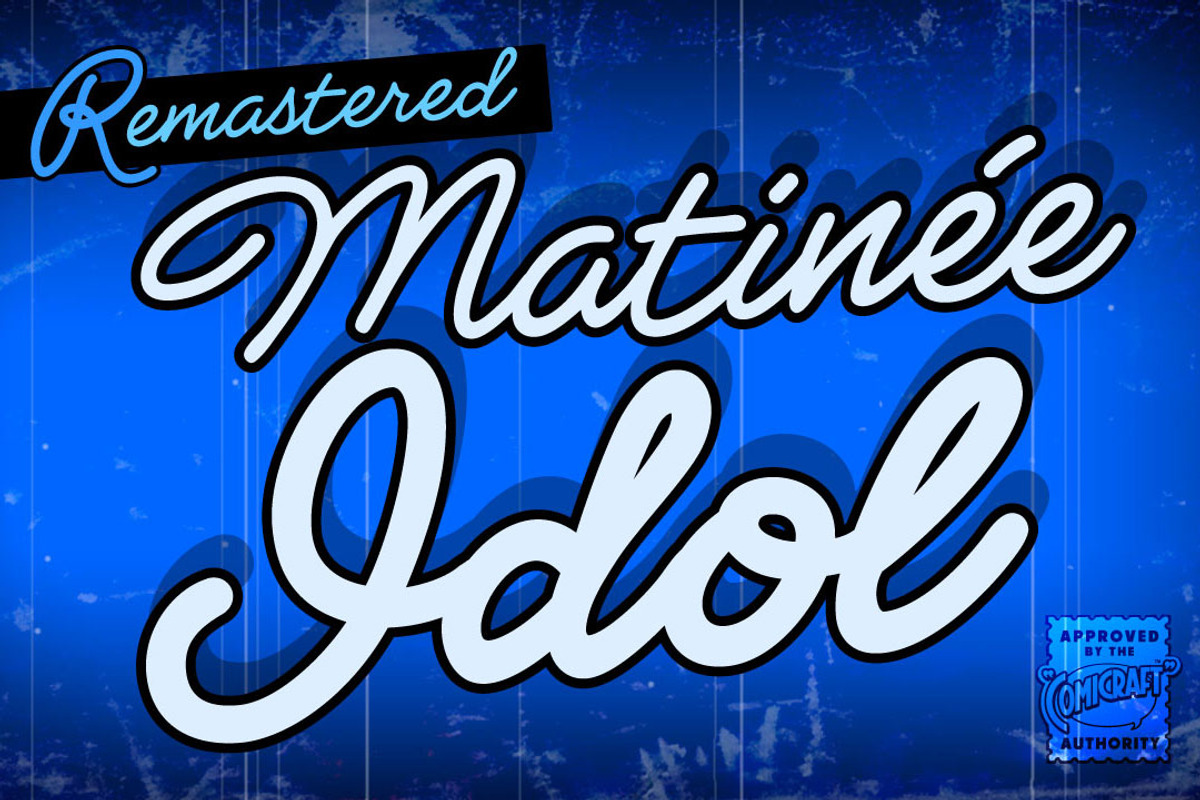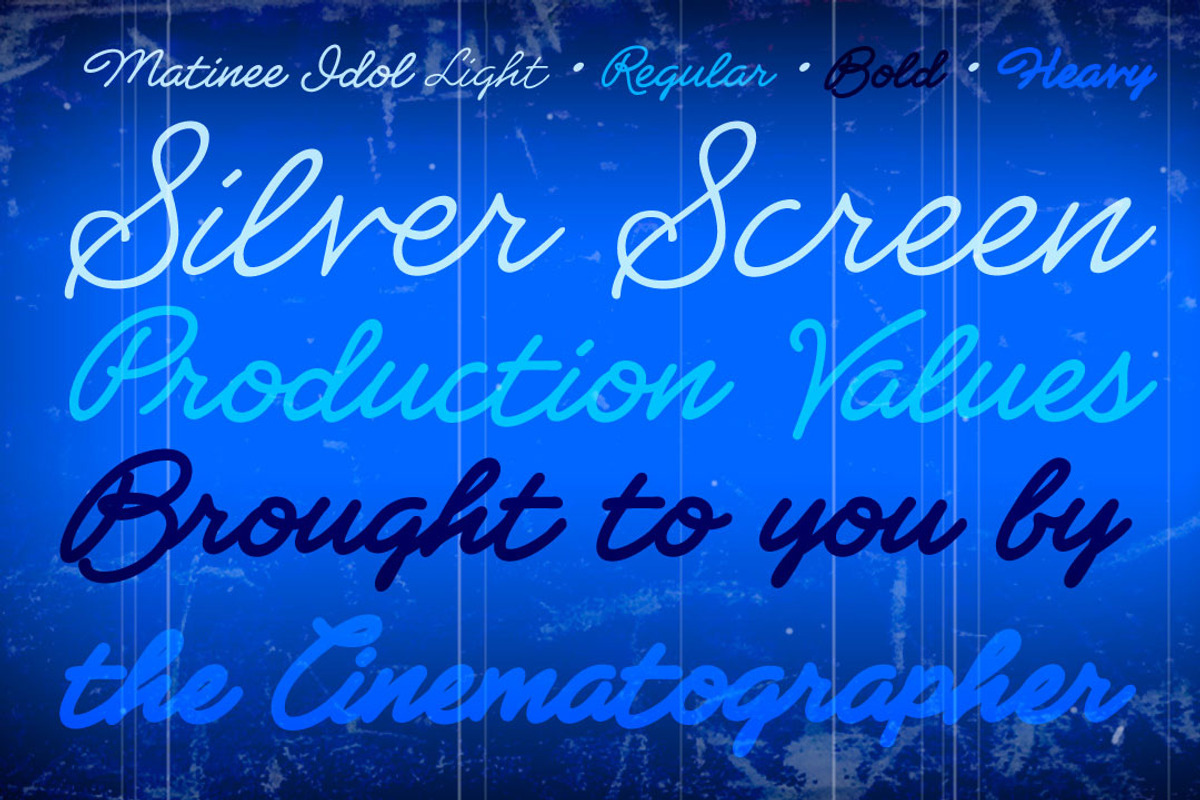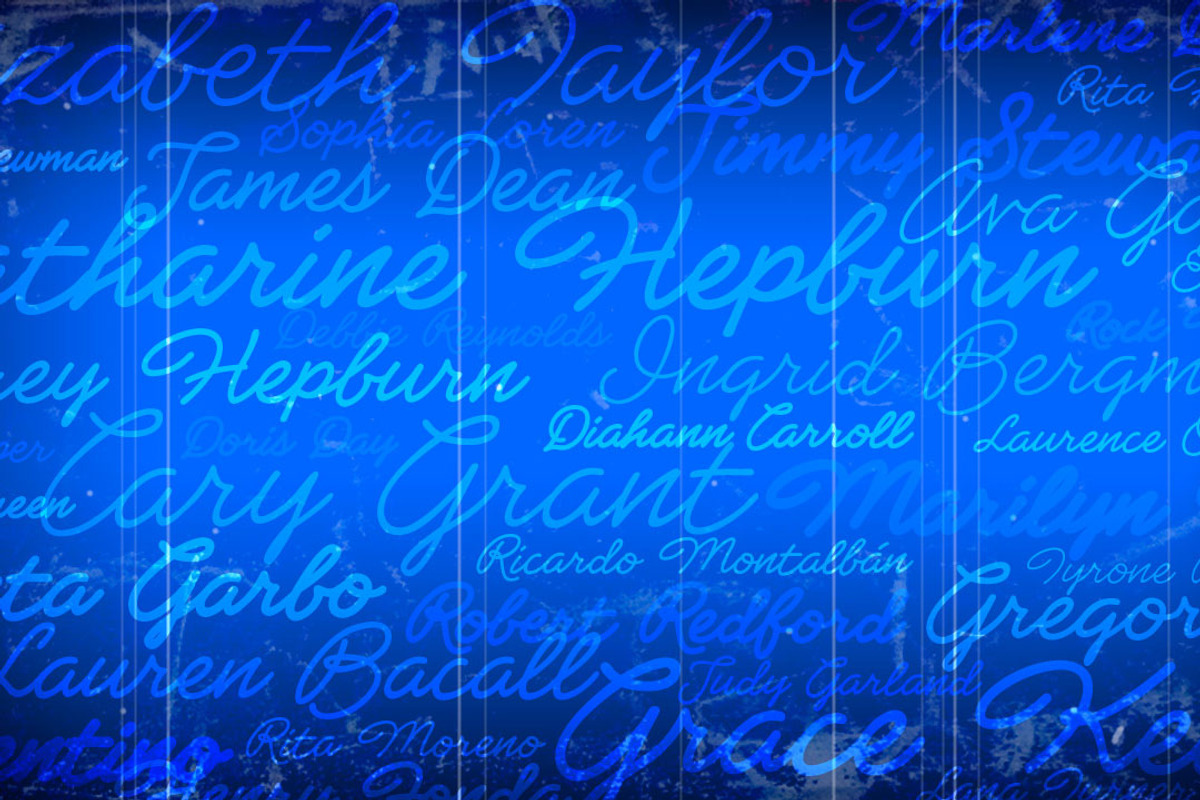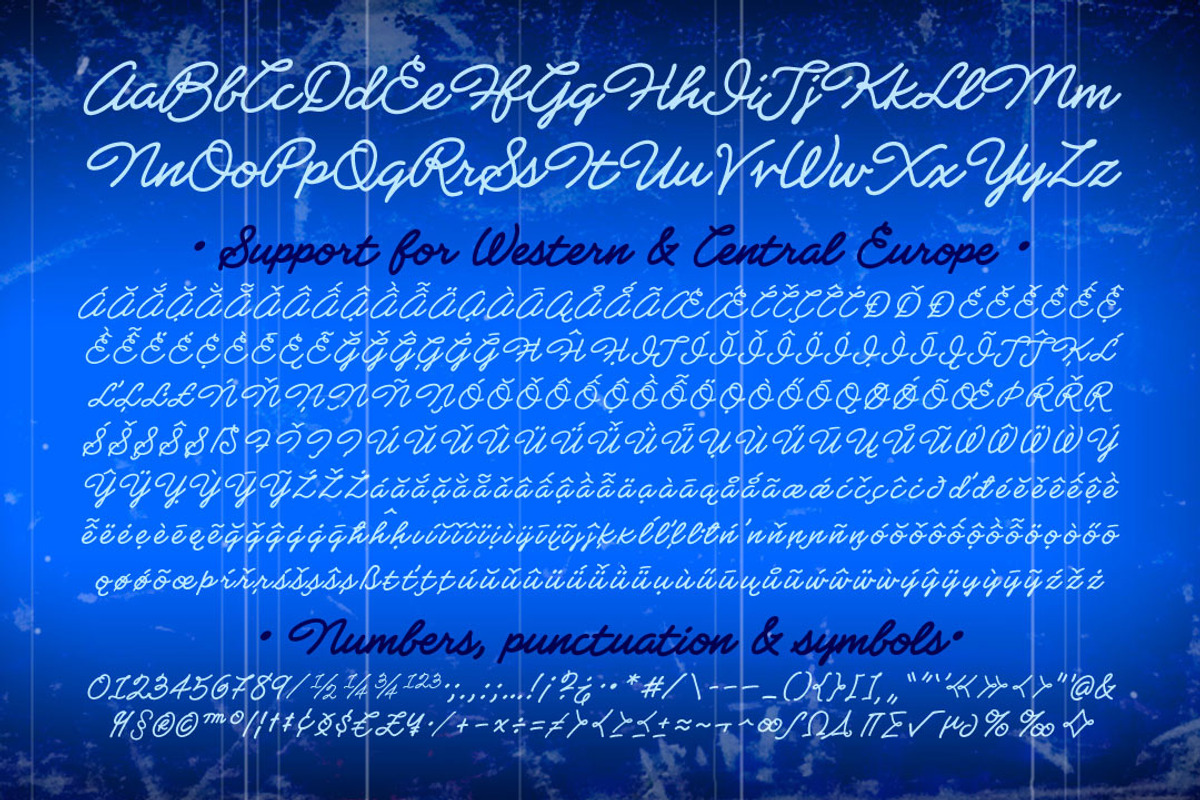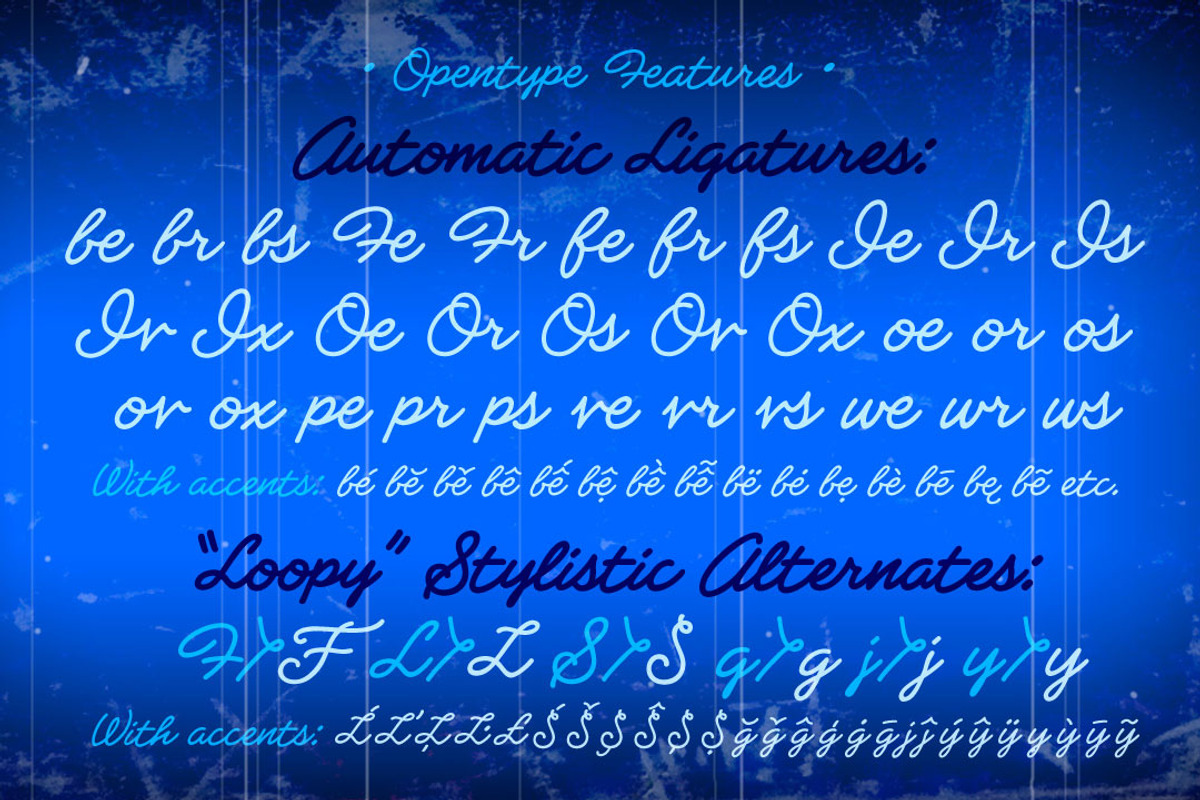
Matinée Idol • elegant script font
Now showing at your local picture house is a classic romantic comedy coupling featuring Matinee Idol and Matinee Idol Bold; famous faces you've come to know and love in features like Warners' "Hush" and Columbia's "The Evil That Men Do."
Stop by our lobby and check these fonts out -- the popcorn and soda are on us!* Oh, and please remember to refrain from smoking and talking during the show!
Remastered Matinee Idol adds new Light & Heavy weights, Opentype connecting Ligatures & Stylistic Alternates, improved spacing & kerning, and Western & Central European language support.